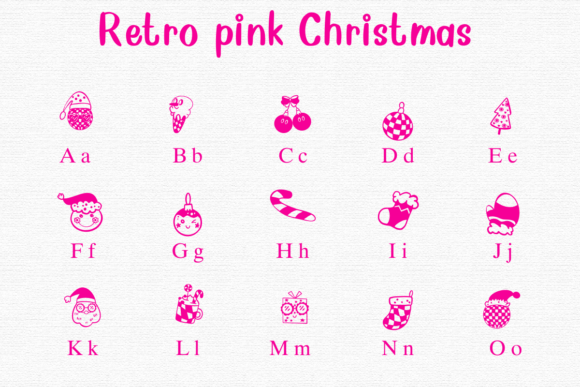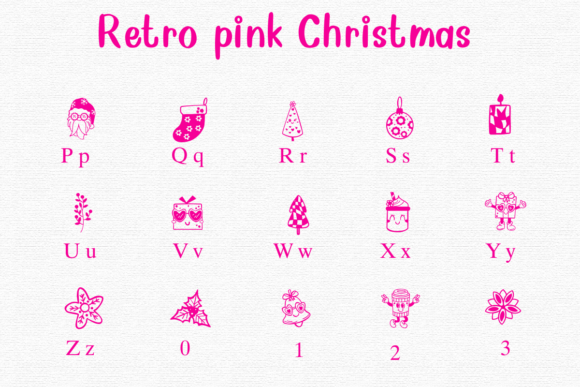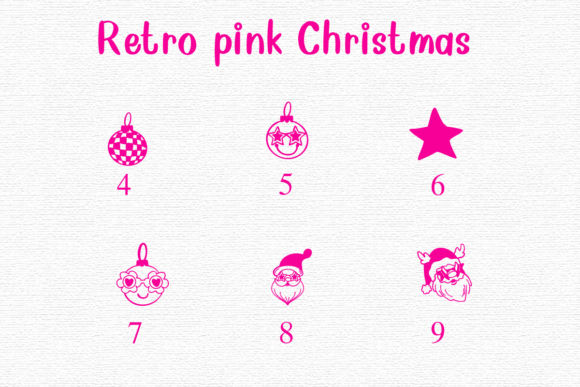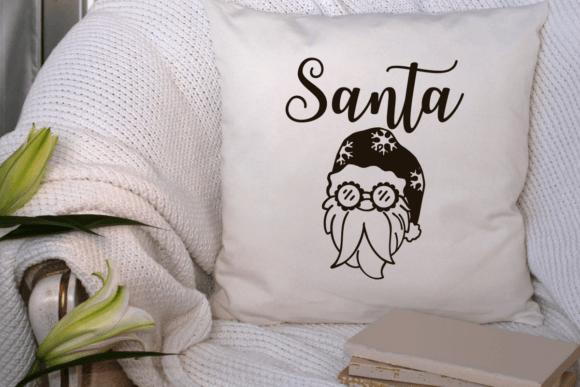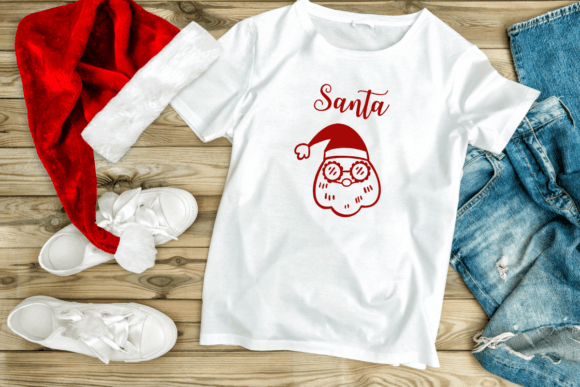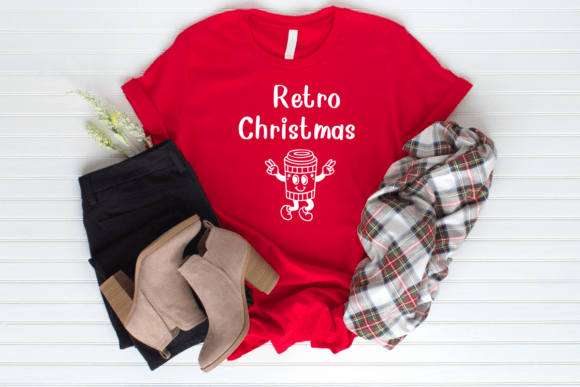
Introduction to Retro Punk Christmas Font Font
Fonts play a crucial role in design, and the Retro Punk Christmas Font font is a typeface that brings both character and versatility to any project. Whether you’re working on a branding project, a website, or a print design, the Retro Punk Christmas Font font offers a unique style that can elevate your work.
βRetro Punk Christmasβ is a fun and festive dingbat font filled with vintage Christmas symbols.
Each letter brings up a different retro holiday icon, like old-fashioned ornaments, classic Santa images, Christmas trees, and vintage lights Itβs perfect for adding a cool, retro vibe to holiday cards, decorations, and festive designs.
Key Features of Retro Punk Christmas Font Font
Why Choose Retro Punk Christmas Font Font?
The Retro Punk Christmas Font font is more than just a typeface β it’s a design tool that helps you communicate your message with style and clarity. Its unique character set and versatile design make it suitable for a wide range of applications, from elegant invitations to bold headlines.
With its carefully crafted letterforms and balanced proportions, the Retro Punk Christmas Font font ensures readability and visual appeal across all mediums.
What makes Retro Punk Christmas Font font special?
The Retro Punk Christmas Font font stands out with its unique design, exceptional readability, and versatility across various design applications.